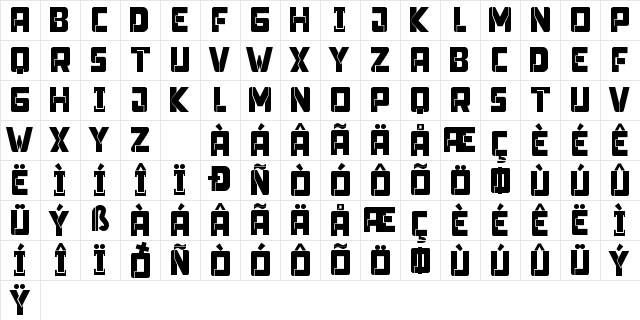
Classic Rock - Personal use Regular Free Font
Classic Rock - Personal use Regular
Designer: Letterara 2019
Design Context for Classic Rock - Personal use
Classic Rock - Personal use wears its vintage influences proudly, with letterforms that recall mid-century signage, classic packaging, and nostalgia-driven design.